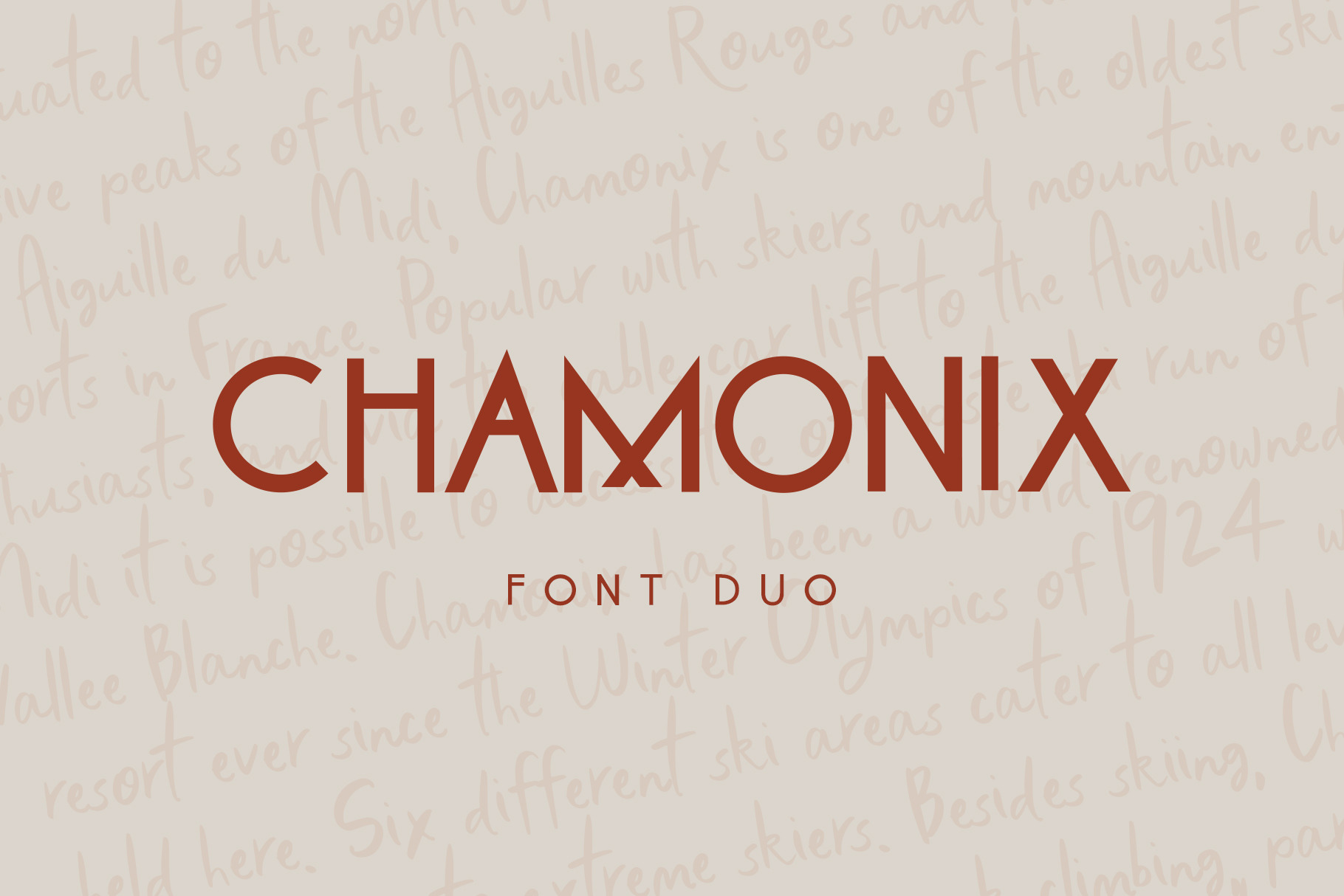
Chamonix Font Duo
Chamonix Font Duo is a timeless sans-serif inspired by vintage ski + travel posters, paired with a modern handwritten typeface to add a softer personality. Used separately or together, each font in the Chamonix Font Duo will add vibrance to your designs.
Both styles include uppercase, lowercase, numbers, and punctuation :) Chamonix Regular also comes with a number of awesome alternate glyphs that add a dynamic and unique touch to all your projects, from logo design to invitations to branding!